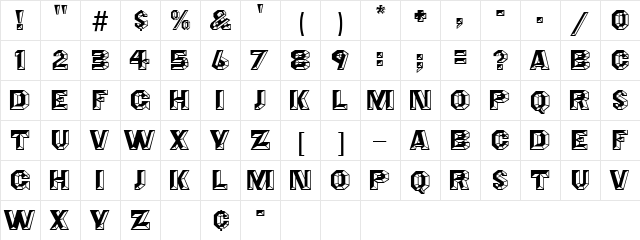
Angles Octagon Regular
Design Context for Angles Octagon Typeface
Angles Octagon is a composed and adaptable typeface that performs quietly and consistently across a wide range of design contexts.